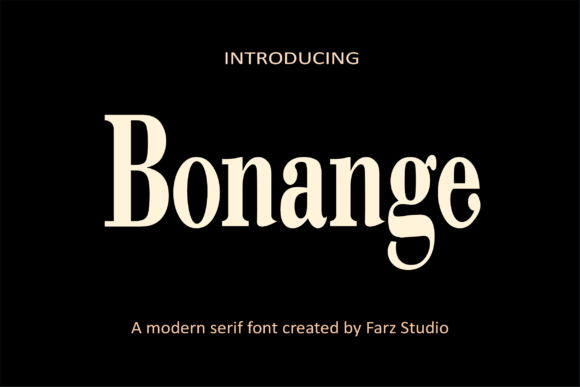
Prepare yourself to be captivated by Bonange, a serif font that oozes boldness and elegance like no other. This stunning font family from Farz Studio is a creative masterpiece, designed to bring your designs to life with its incredibly versatile style.
With Bonange, you have the power to craft designs that command attention and leave a lasting impression. Its bold strokes and refined curves dance together harmoniously, creating a visual symphony that will make your designs stand out from the crowd.
Immerse yourself in the world of Bonange and let your imagination run wild. Whether you're a seasoned designer or just starting your creative journey, this font is your perfect companion. Its versatility knows no bounds, catering to a wide range of projects, from elegant invitations and sophisticated logos to eye-catching social media graphics and captivating website designs.
With Bonange, you'll find endless opportunities to express your creativity. Its alluring charm will add a touch of sophistication to your wedding invitations, making your special day even more memorable. Elevate your branding efforts with a logo that exudes professionalism and class, or create social media content that captures the attention of your audience with its visual appeal.
But Bonange's magic doesn't stop there. This font is also a dream to work with. Its smooth flow and effortless legibility make it a joy to use, even for extended periods. Say goodbye to frustration and hello to a seamless design experience.